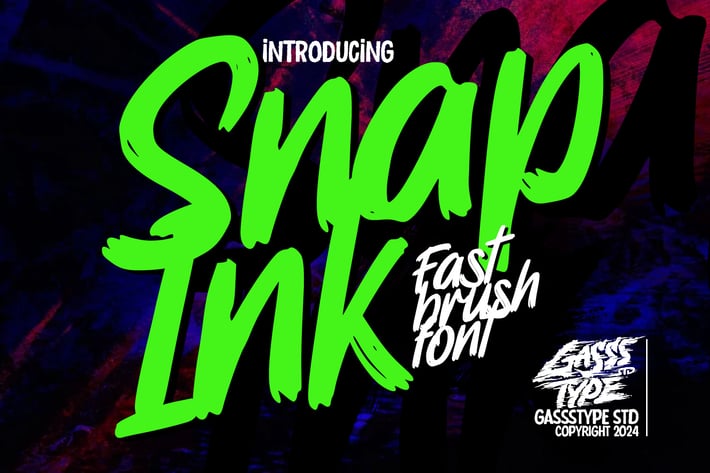
Snap Ink - Rough Brush Font
Snap Ink – Rough Brush Font for Dynamic, Edgy Designs
Perfect for creating bold posters, edgy branding, and striking social media graphics, Snap Ink is a rough brush font that delivers a dynamic and raw aesthetic. With its rugged strokes and hand-drawn feel, Snap Ink adds an energetic touch to your designs, making it ideal for projects that need a bold, eye-catching presence.
Whether you’re working on music covers, urban-themed artwork, or rebellious logos, Snap Ink’s gritty texture and powerful style make your content stand out. The font’s rough edges and expressive lines are perfect for adding a touch of spontaneity and attitude to any project.